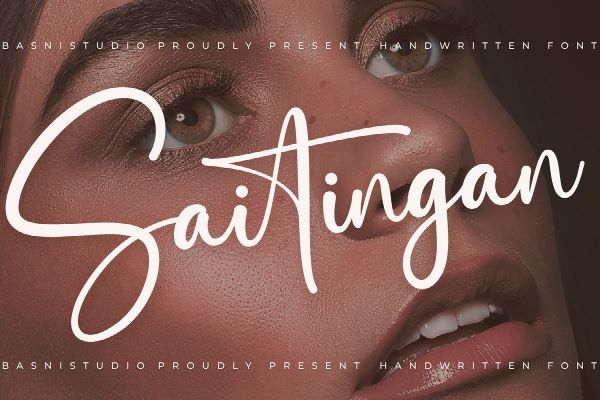
Saitingan Font
Saitingan by Bery Arisandi (BASNI.std) is a free handwritten font that brings an elegant, modern romantic quality to any design it touches — its flowing letterforms striking that rare balance between organic spontaneity and composed refinement. Available free for personal use, with a commercial license available via Basnistudio.